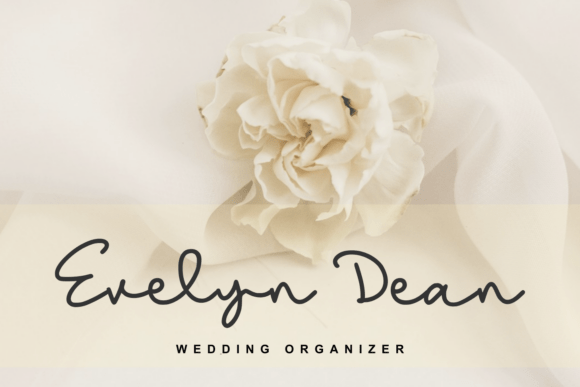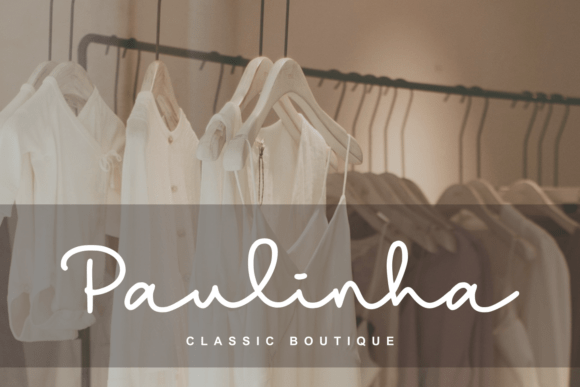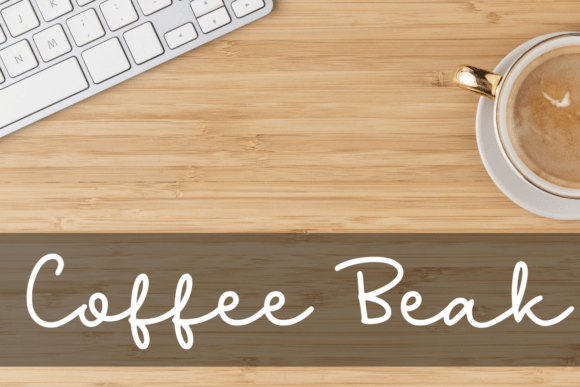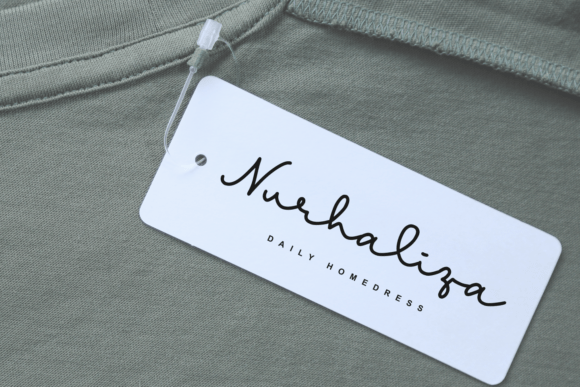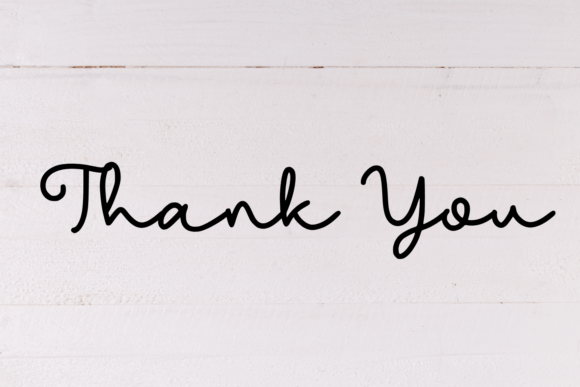
The Elusive Perfect Font: My Journey with Gishela
I still remember the project – a wedding invitation suite that needed a touch of elegance and whimsy. As a designer, I had spent hours scouring font libraries, trying to find that perfect script font that felt both personal and refined. And then, I stumbled upon Gishela. It was love at first sight! ✨ The fluid motion, the subtle loops, and the gentle curves all combined to create a sense of authenticity and grace that I knew would be perfect for the job.
An Honest Review of Gishela
- ✨ Delicate signature-style script that feels effortlessly personal and refined
- ✅ Smooth, continuous strokes with subtle loops and gentle curves that create a sense of authenticity and grace
- ✅ Slightly uneven baseline and soft stroke endings that give Gishela a genuine handwritten charm
- ✅ Clarity and balance for modern design use, making it perfect for a wide range of projects
While Gishela is an amazing font, it’s not without its quirks. Here are a few things to keep in mind:
- ⚠️ The font can be a bit finicky when it comes to kerning – make sure to adjust it carefully to get the best results
- 🤔 Some of the more intricate letters and glyphs can get a bit lost at smaller font sizes
A Practical Guide to Using Gishela
The Story Behind Gishela
Gishela was designed with the goal of creating a font that felt both personal and refined. The designer wanted to capture the fluid motion of natural handwriting, while still maintaining clarity and balance for modern design use. The result is a font that feels effortlessly elegant and authentic – perfect for a wide range of design projects.
Q: What is Gishela’s personality?
A: Gishela is a delicate signature-style script font that feels effortlessly personal and refined. It’s perfect for designers who want to add a touch of elegance and whimsy to their projects.
Q: What kind of projects is Gishela best suited for?
A: Gishela is versatile and can be used for a wide range of projects, from wedding invitations and branding materials to packaging and digital design.